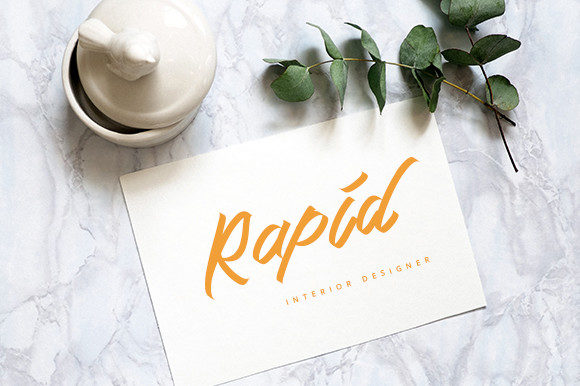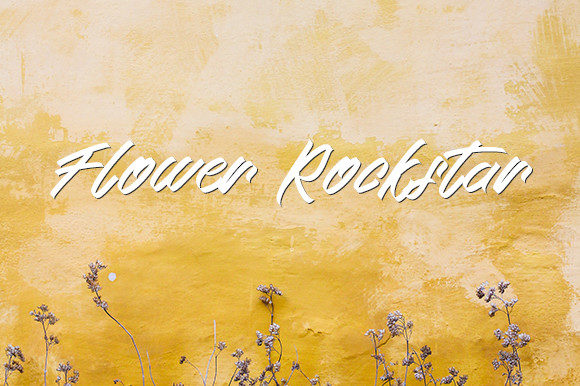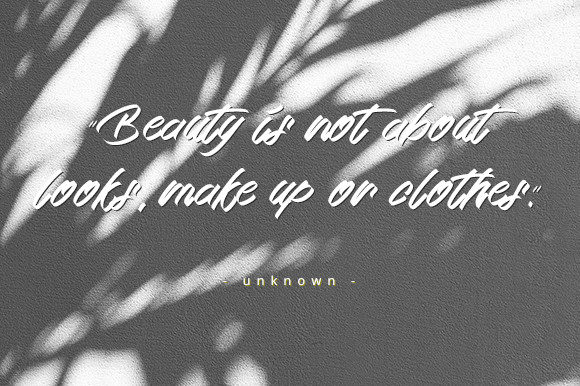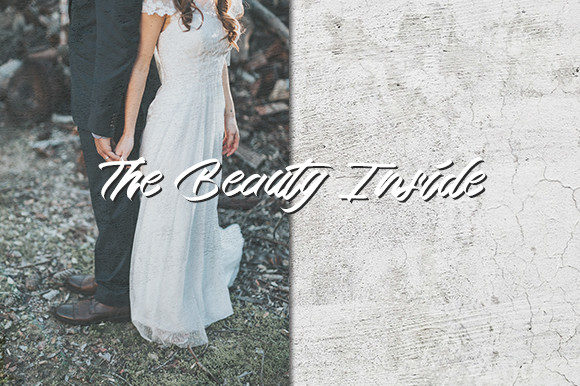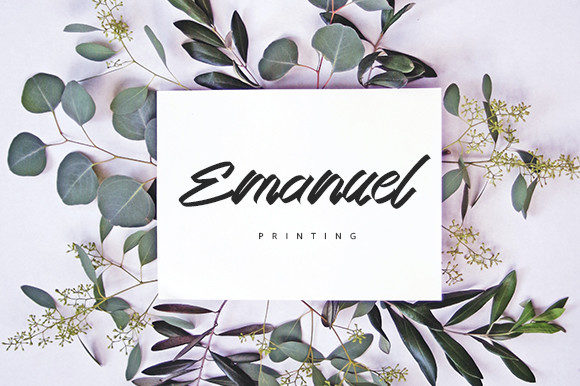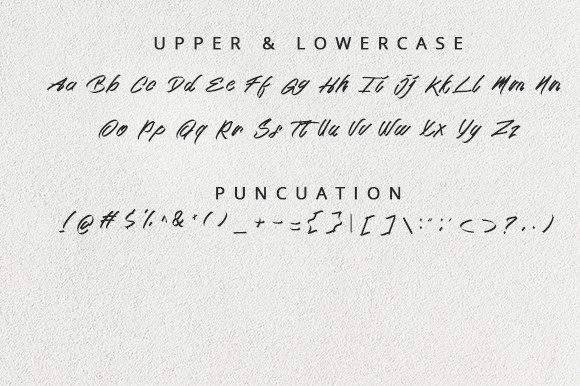
Discovering the Beauty of Qonjungtion Font
As a designer, there’s nothing quite like the thrill of bringing a creative project to life. You’ve spent hours brainstorming ideas, sketching out concepts, and tweaking every detail – and then, just as you’re about to hit publish, you realize that something’s missing. That’s where a high-quality font like the Qonjungtion Font comes in. This stunning script typeface is the perfect way to add a touch of elegance and whimsy to your design.
With its free-flowing lines and natural charm, the Qonjungtion Font is a design resource that’s hard to resist. Whether you’re working on a personal project or a commercial campaign, this beautiful font is sure to elevate your design to the next level. And the best part? It’s completely free to download, making it the perfect addition to any creative project.
- High-quality design resource ideal for creative projects, offering a unique and modern aesthetic.
- Perfect for use in logos, typography, and other creative projects where a distinctive and eye-catching font is required.
Honest Review: Qonjungtion Font
I recently had the chance to work with the Qonjungtion Font, and I must say, it’s a great addition to any designer’s toolkit. This font is a high-quality, free download that can elevate any creative project.
While the Qonjungtion Font is a great resource, there are a few limitations to consider:
- ⚠️ Limited character set, which may not be suitable for longer texts
- ⚠️ Not as versatile as some other fonts, which may limit its use in certain projects
Overall, I’m impressed with the Qonjungtion Font. It’s a great resource for designers who need a high-quality, free font for their creative projects. While it may not be perfect, it’s definitely worth checking out.
The Qonjungtion Font is a high-quality, free download design resource ideal for creative projects. It features a unique, elegant style with a transparent background, making it perfect for use in various design applications.
The Qonjungtion Font is ideal for use in various creative projects, including:
1. Branding and logos
2. Business cards and invitations
3. Social media graphics and posters
Yes, the Qonjungtion Font is designed to be highly legible on a variety of backgrounds, including transparent backgrounds. The font’s high-quality design ensures that it will display clearly even when layered over complex graphics or images.
Is the Qonjungtion Font suitable for high-resolution designs?
Yes, the Qonjungtion Font is designed to be highly legible at high resolutions, making it an excellent choice for designers working on high-resolution projects, such as printing or digital products with high pixel densities.